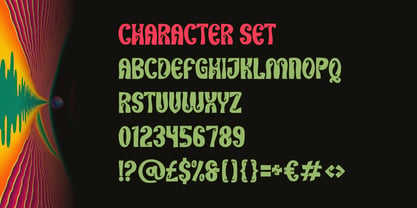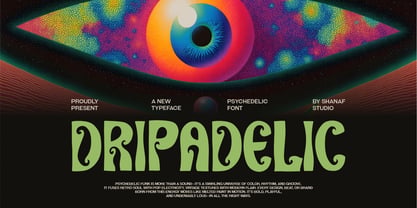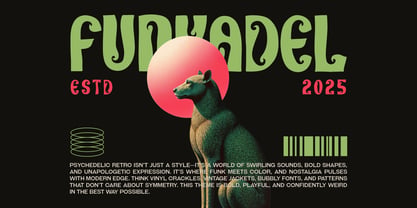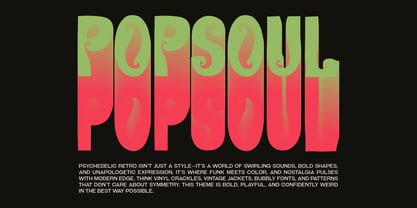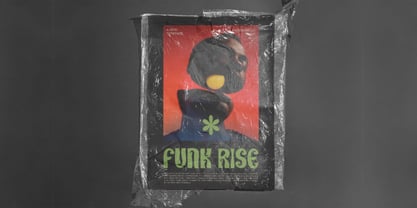
Dripadelic
by Shanaf
The Dripadelic Font Family was designed by Yesie Erma Yunita and published by Shanaf. Dripadelic contains 1 styles. More about this family
Dripadelic Display Psychedelic Font is a bold and hypnotic typeface designed to capture the energy of psychedelic art. Its thick letterforms feature playful swirls and flowing curves that feel organic, almost like liquid in motion. The font combines retro 70s soul with modern creative flair, offering a versatile look that works beautifully for eye-catching posters, music event graphics, packaging, or even unique branding projects. Every letter is crafted with a balance of fluid motion and bold presence, making it stand out in both large headlines and creative layouts.
This font is perfect for designers who want to bring back the nostalgic essence of the hippie era with a modern twist. Its dripping strokes and groovy forms echo the counterculture spirit of psychedelic design while staying highly legible for practical use. Whether used for album covers, film titles, or editorial spreads, Dripadelic creates a visual rhythm that feels vibrant, daring, and artistic. It’s not just a typeface—it’s a statement of style, blending retro funk with bold contemporary energy.
Designers: Yesie Erma Yunita
Current Foundry: Shanaf